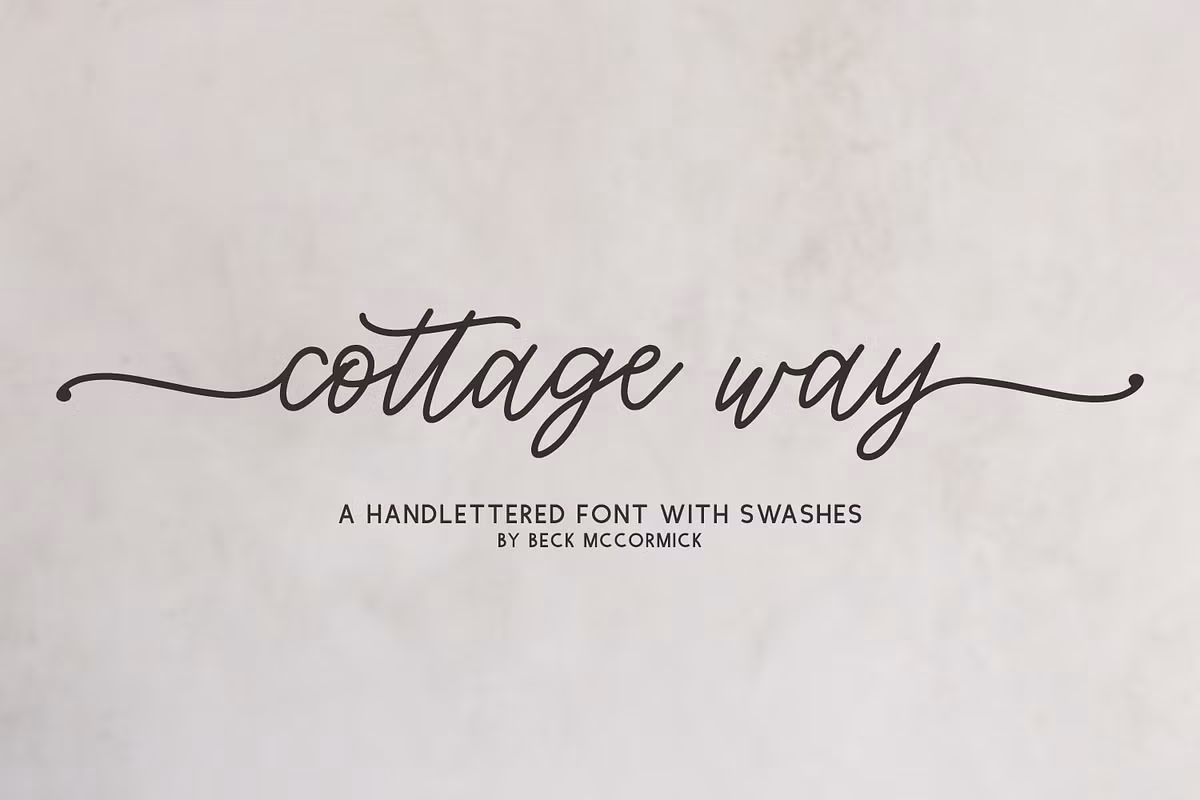
Cottage Way Script Font Free Download is a charming and elegant handwritten typeface that evokes warmth, romance, and rustic beauty. Please note, you are required to purchase this font for commercial use. It is available for free download for testing and personal projects only.
With its flowing curves, soft strokes, and natural handwritten feel, Cottage Way is perfect for wedding invitations, feminine branding, greeting cards, lifestyle blogs, and cozy packaging. It brings a heartfelt, personal touch to any design while remaining stylish and legible.